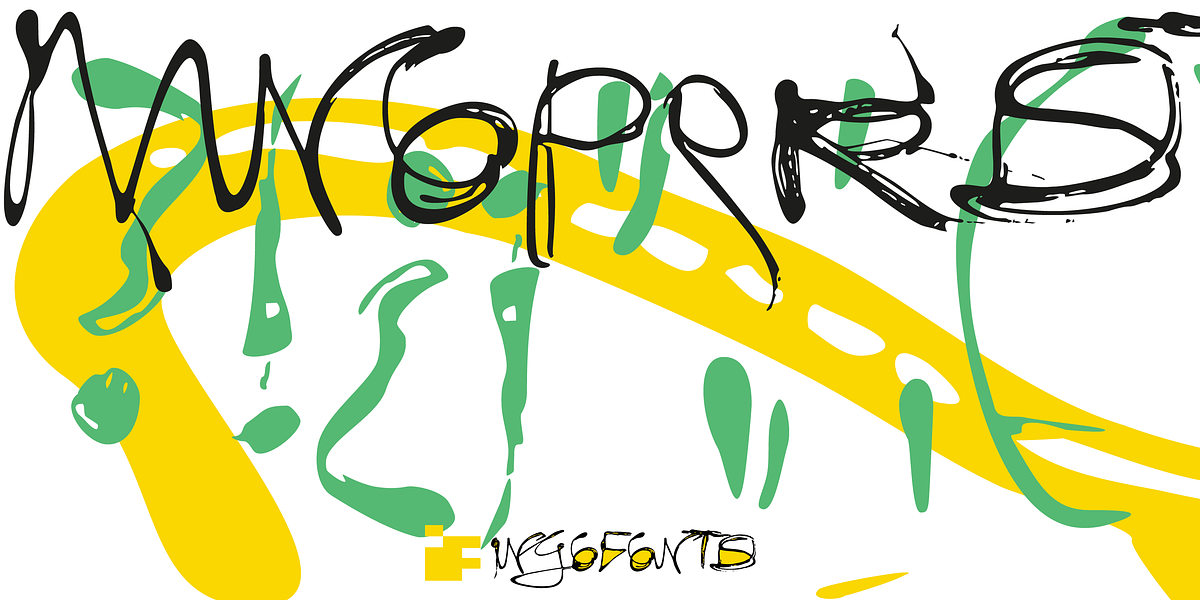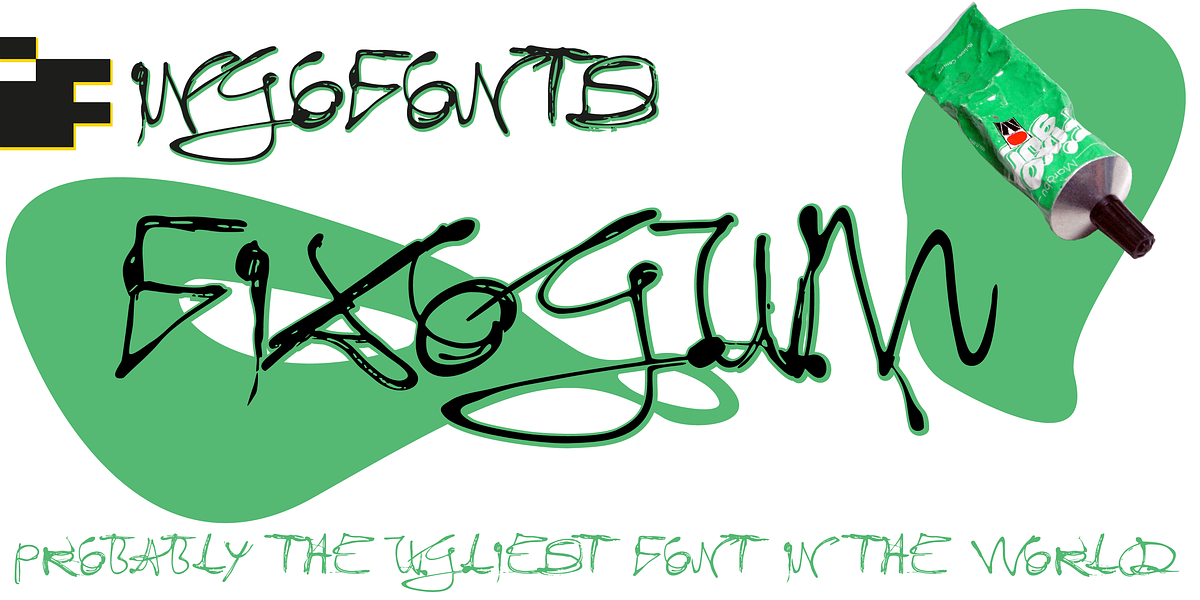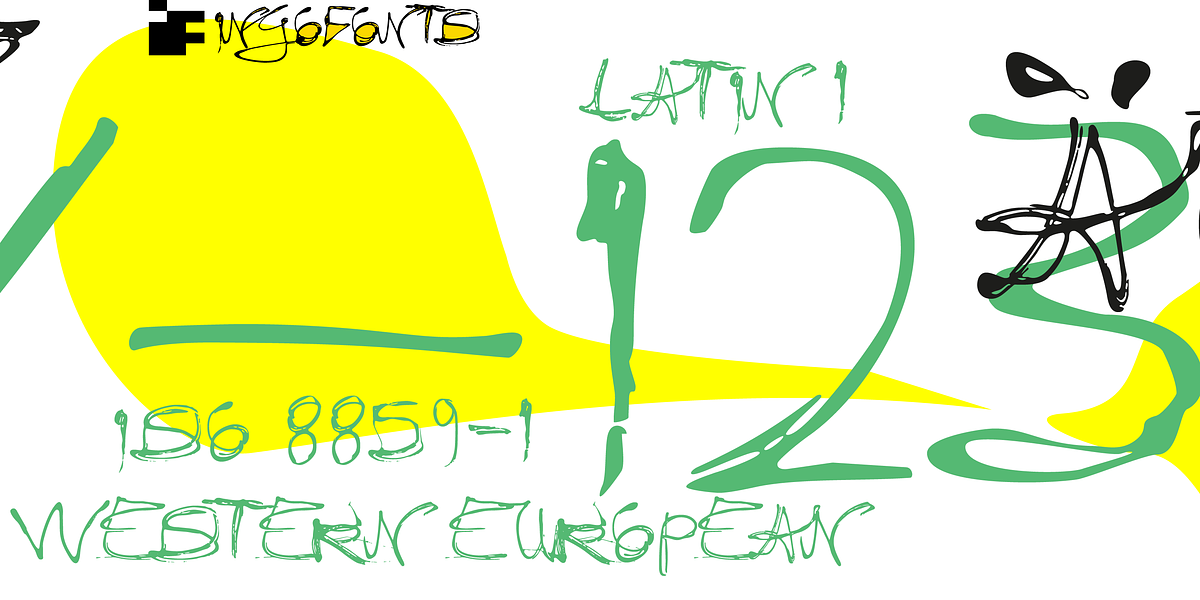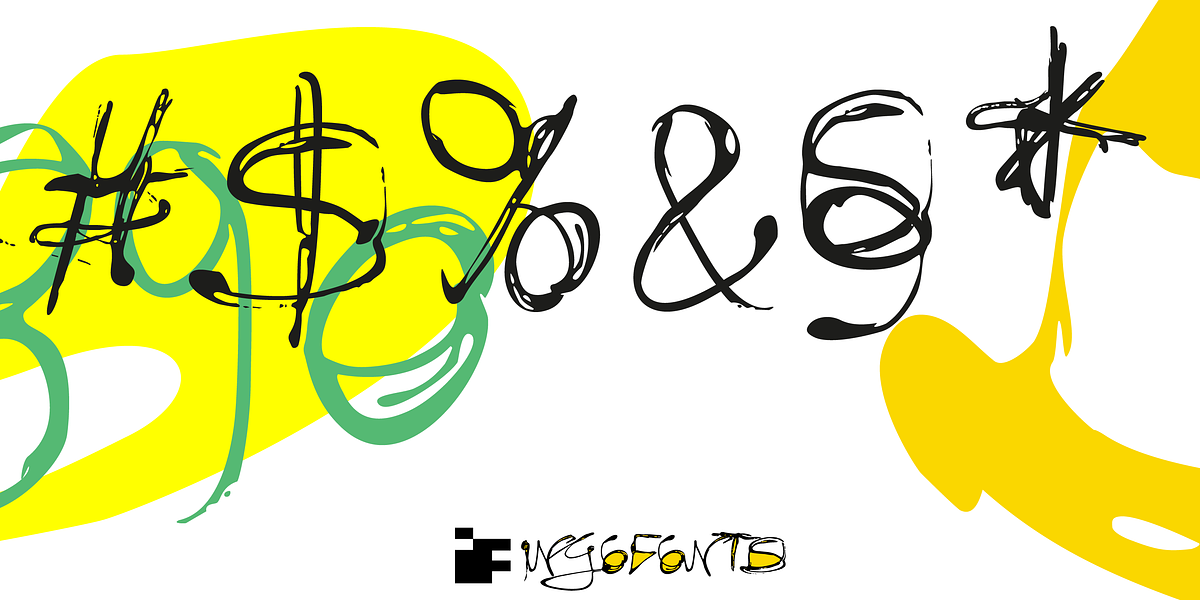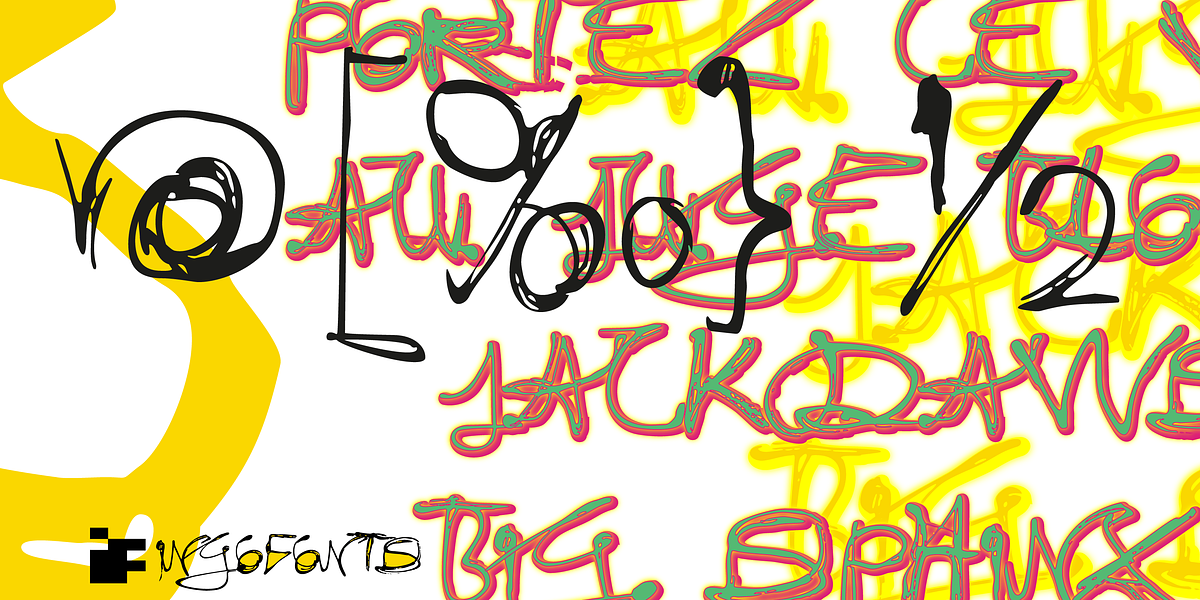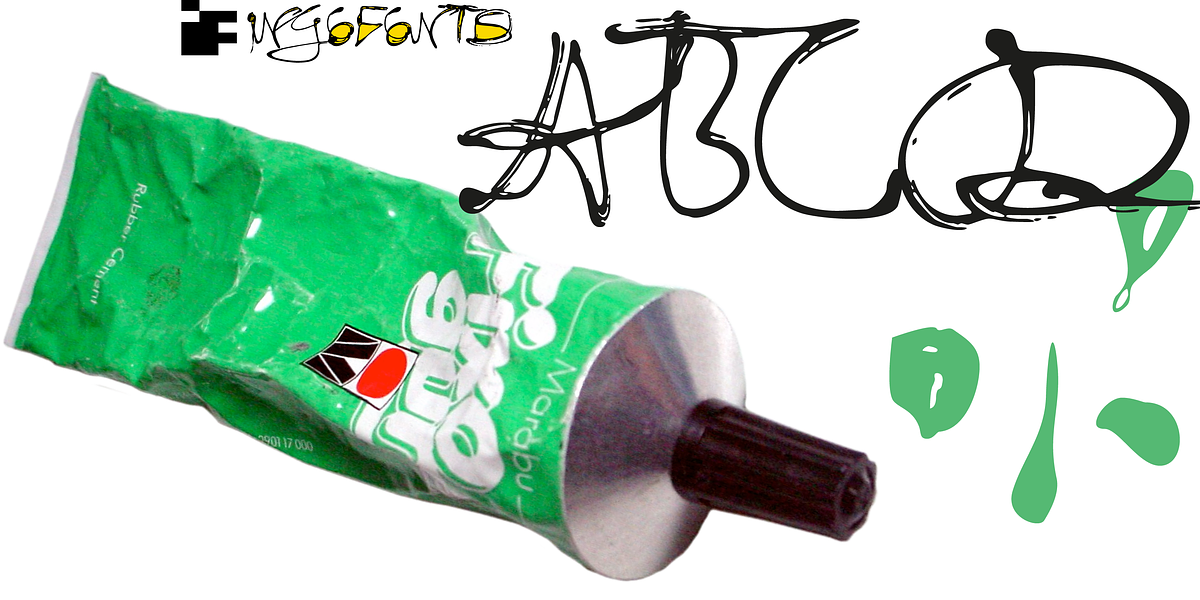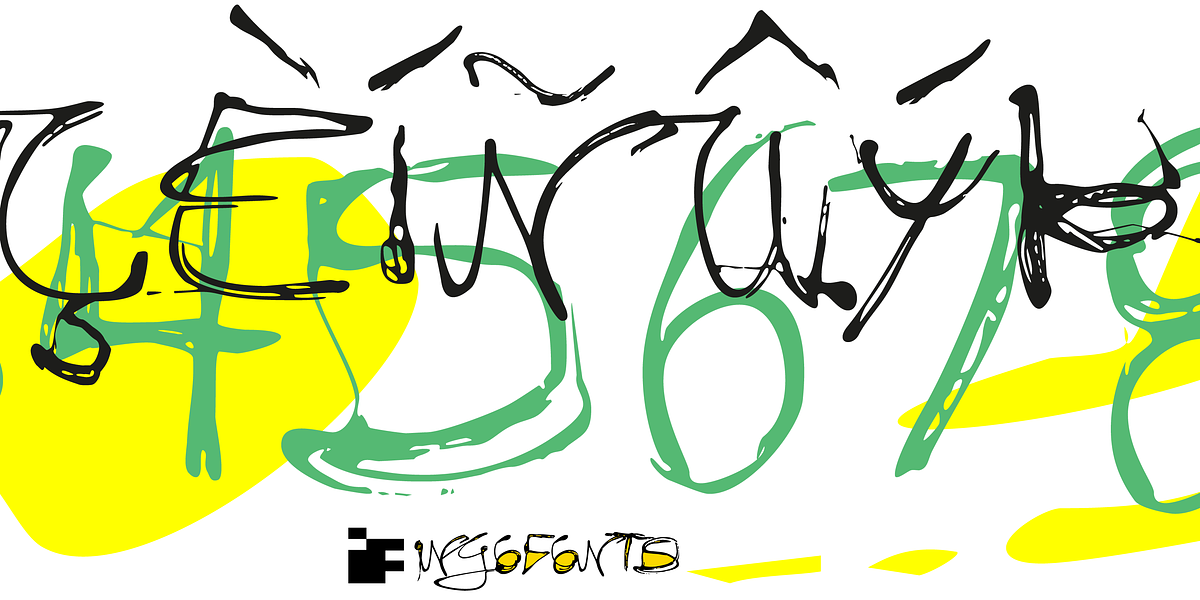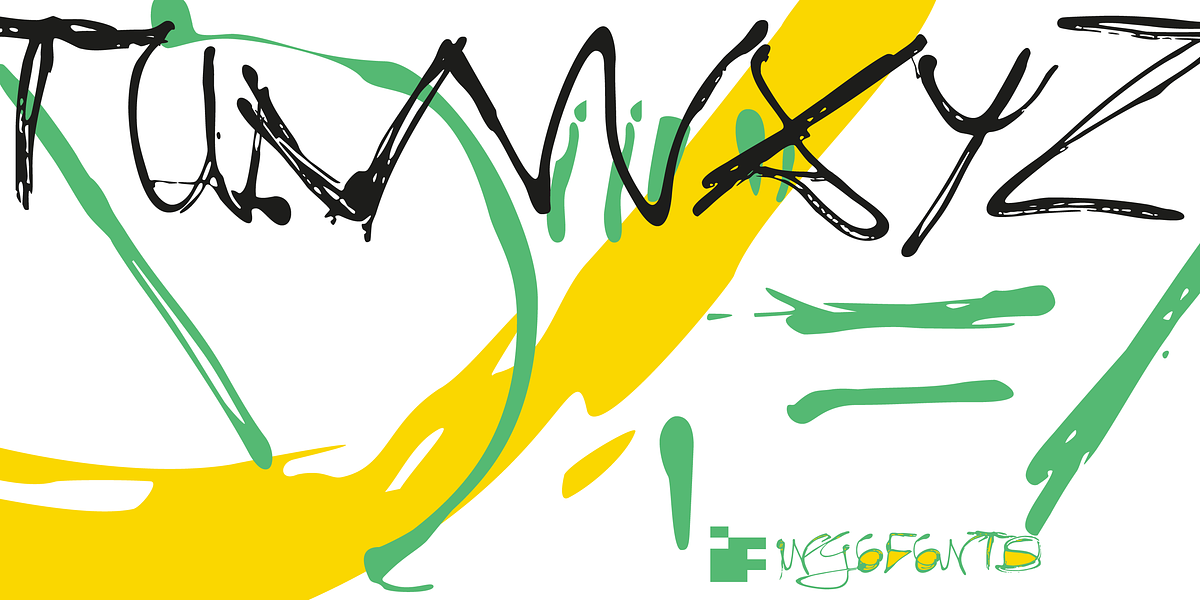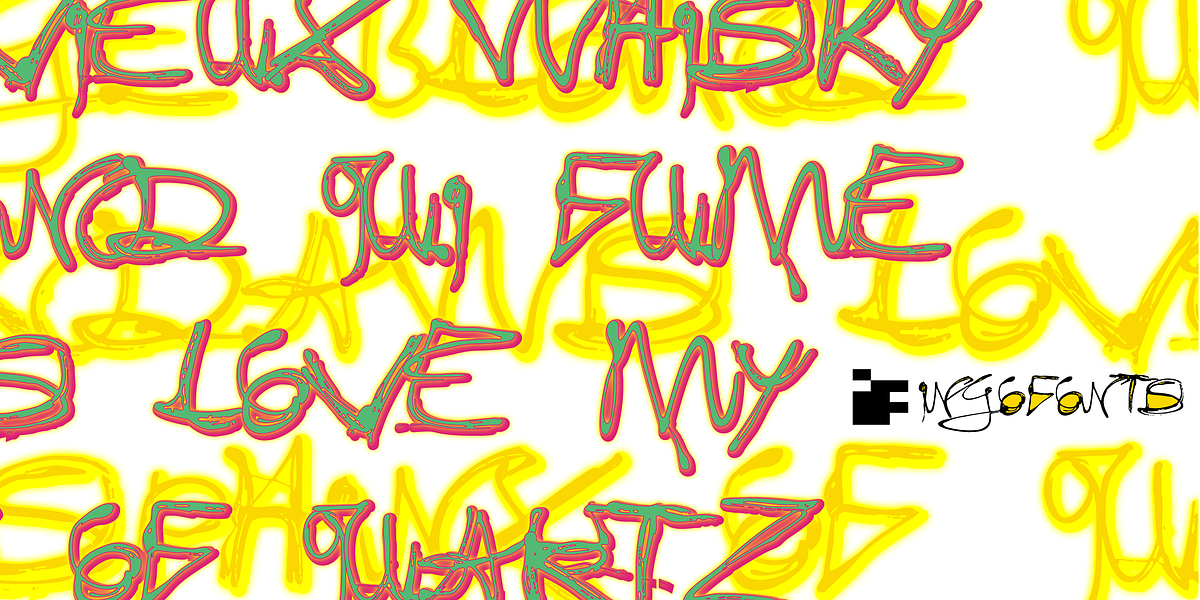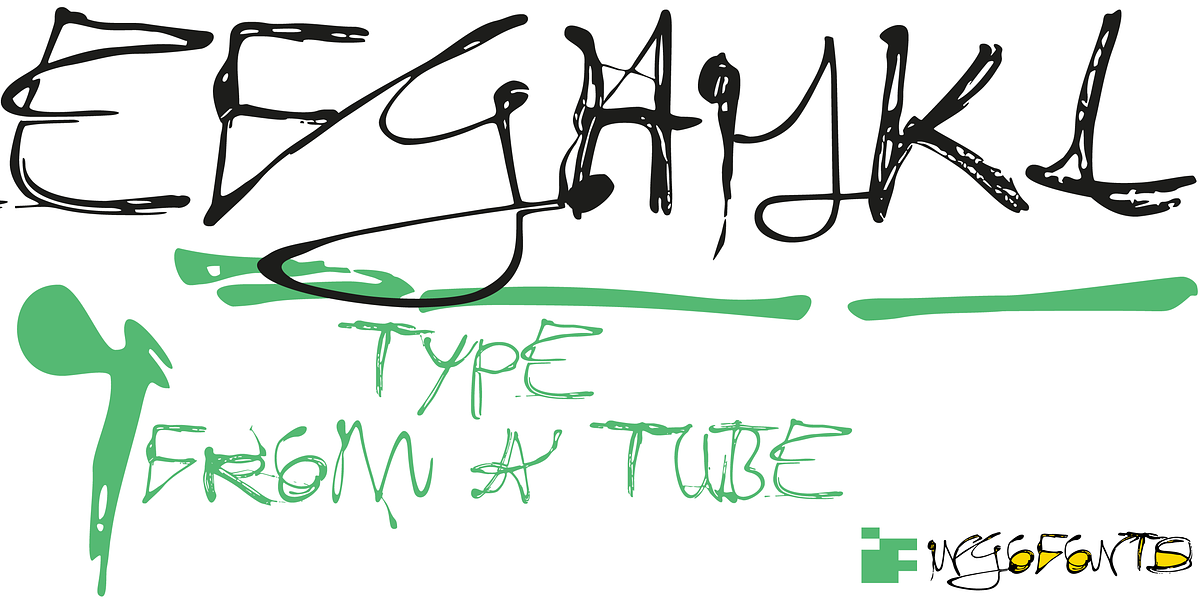
Fixogum
FIXOGUM is a unique all-caps display font inspired by the texture and feel of Fixogum glue. Its hand-drawn, archaic letterforms create a graffiti-like aesthetic that is both scary and playful. The font's unconventional design makes it ideal for eye-catching posters and displays.